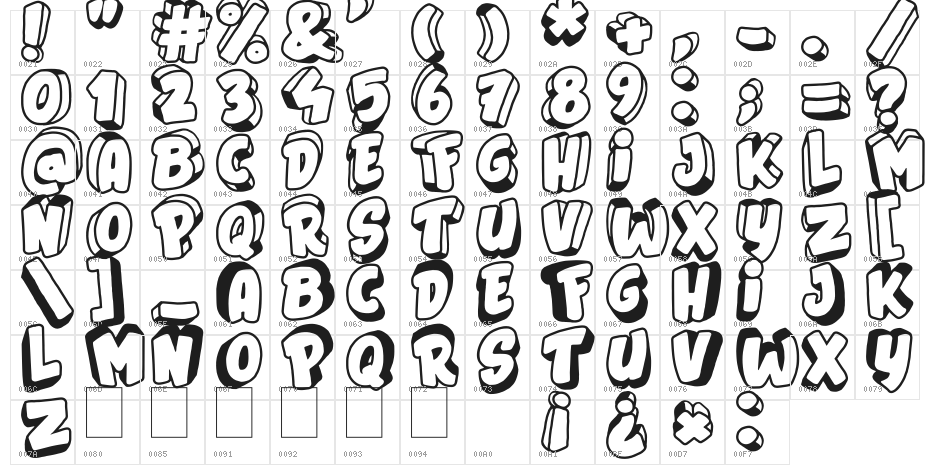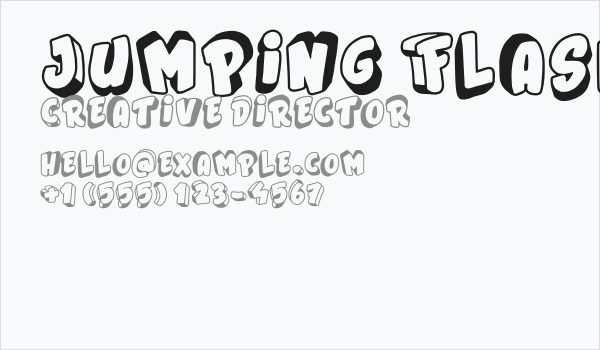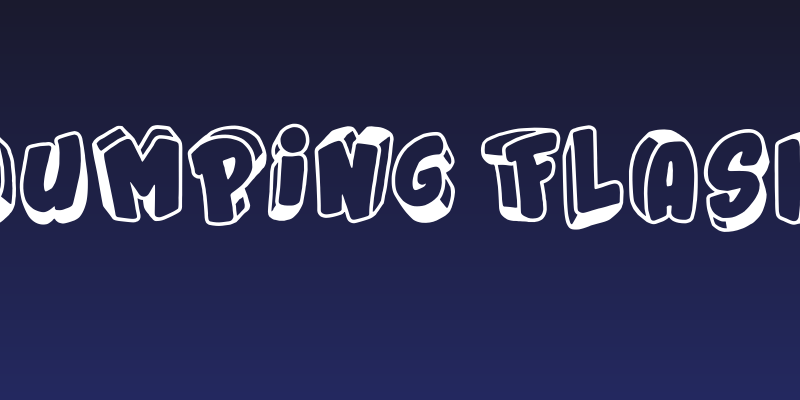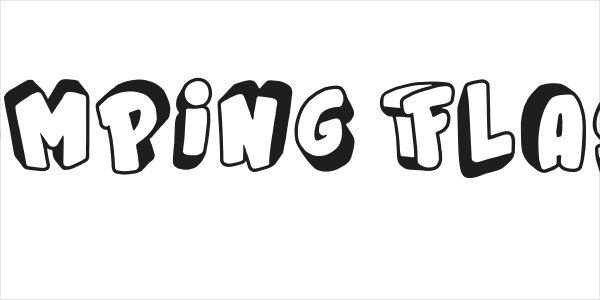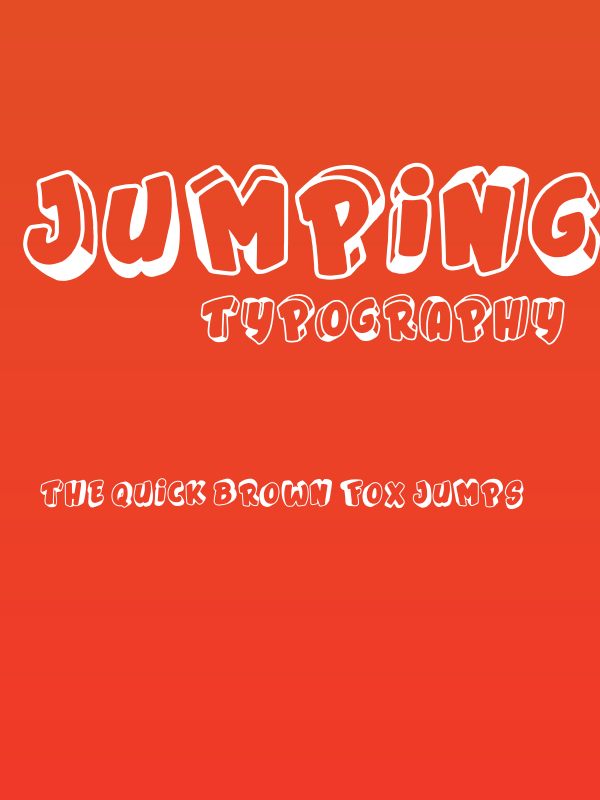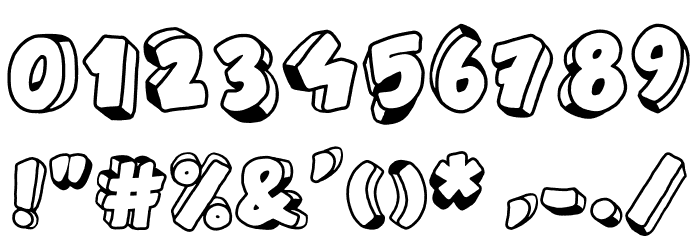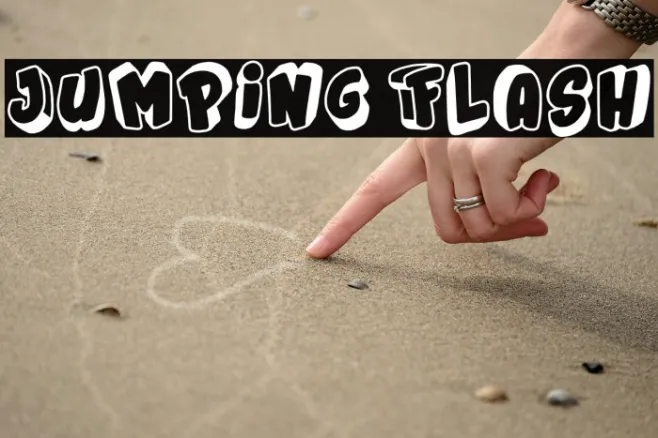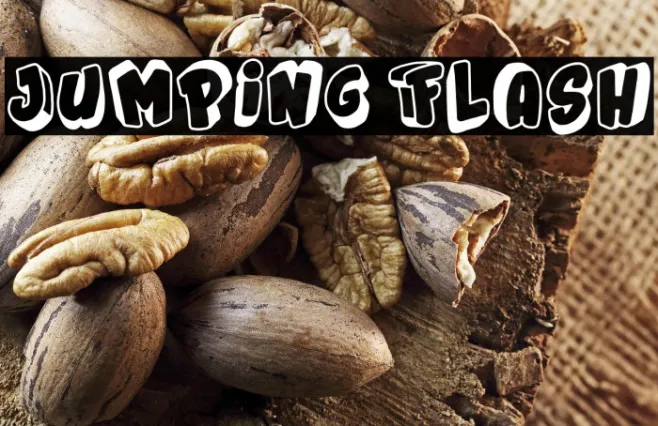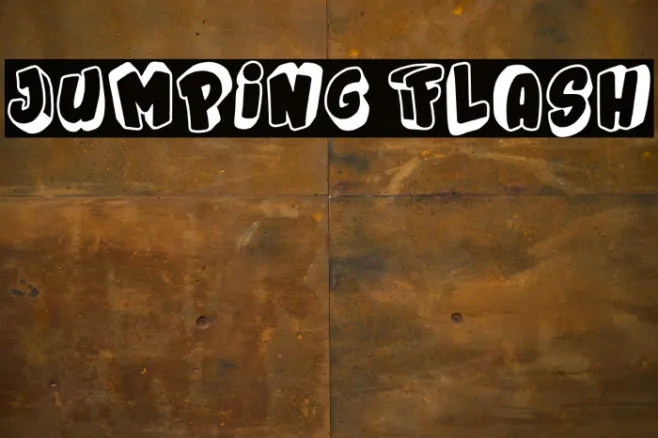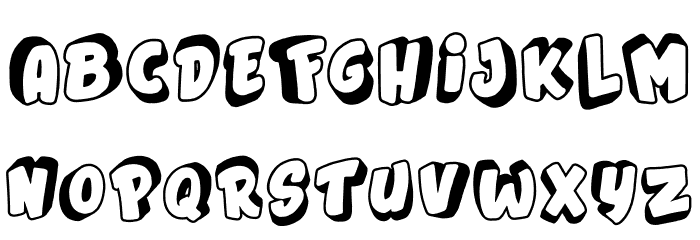
Jumping Flash Font
Jumping Flash Description
This playful and bold font features a three-dimensional, cartoon-like style with thick outlines and shadowing that gives each character a sense of depth and movement. The letters are rounded and slightly irregular, adding to the whimsical and dynamic feel. The font includes both uppercase and lowercase letters, numbers, and a variety of special characters, all maintaining the same energetic and bouncy aesthetic. The exaggerated forms and lively appearance make it ideal for projects that require a fun and engaging visual impact.
| Overall Style | Playful, Cartoonish, Energetic |
| Use Case | Headlines, Logos, Posters, Children's Materials |
| Proposed Projects | Ideal for children's books, comic strips, playful branding, party invitations, and any project needing a fun, lively touch. |